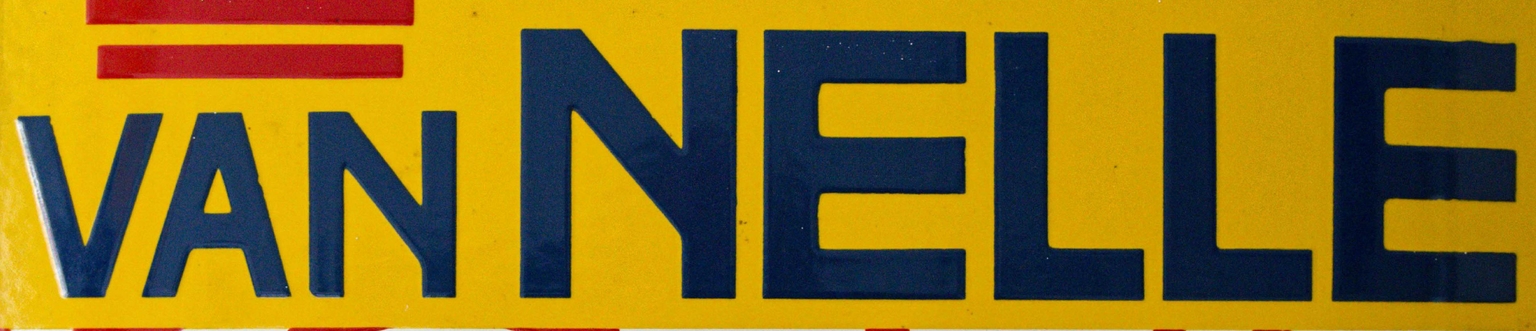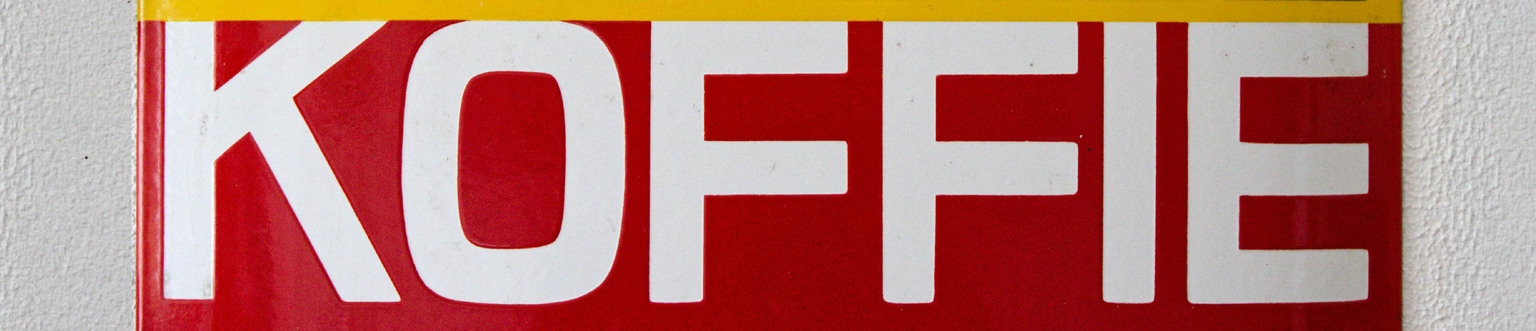
Nelita
Nelita is a sans serif typeface designed by Ramiro Espinoza and inspired by the technical-looking lettering used in vintage enamel advertising for the Dutch coffee brand Van Nelle. Rather than following a single standardized alphabet, Van Nelle’s historical advertising featured lettering that was freely adapted to the proportions and requirements of each sign, advertisement, or package. This resulted in a varied but recognizable typographic language.
Espinoza studied the best examples of this lettering, focusing on its proportions, construction, and practical approach to composition. He translated these characteristics into a contemporary digital typeface, refining the forms and establishing a consistent system while retaining the functional, slightly industrial appearance of the original material.
With its straightforward construction and austere character, Nelita is well suited for branding, packaging, posters, signage, editorial design, websites, and advertising. It is particularly effective for projects related to food, retail, manufacturing, transportation, and technology, as well as designs that draw on the visual language of early twentieth-century Dutch commercial graphics.